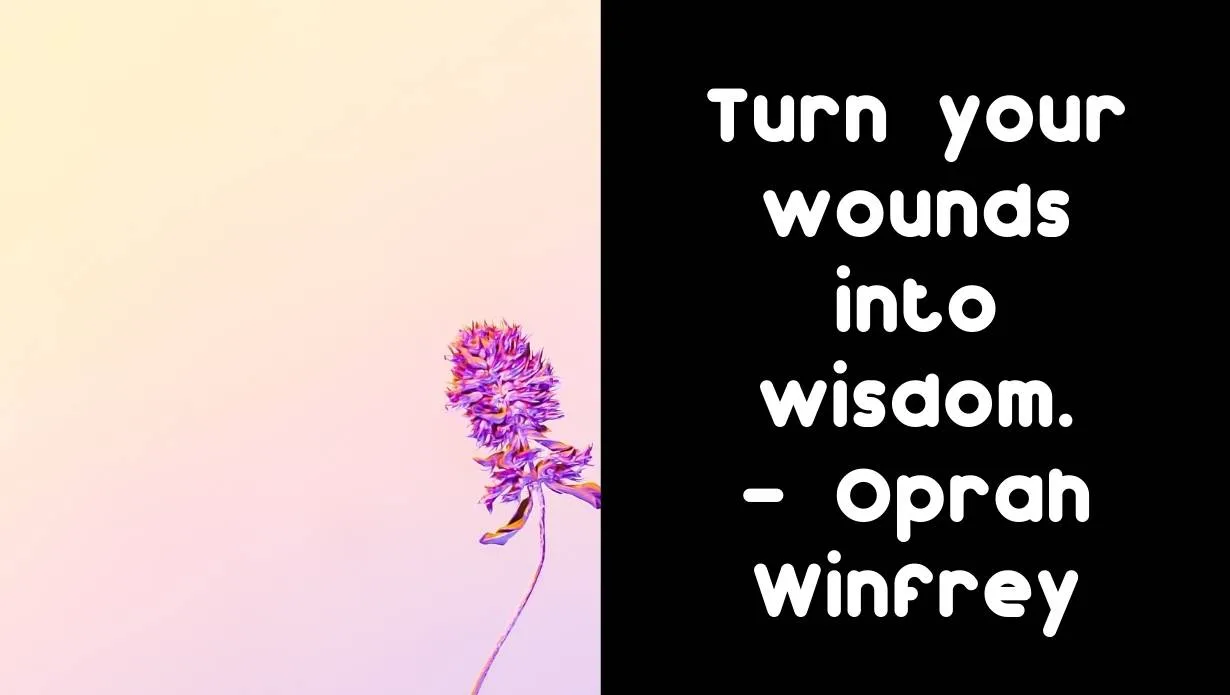
Today we introduce Dunkin Donuts Font which belongs to the Geometric Sans Serif typeface. This typeface was designed by Neale and Shayna Davidson. The design was inspired by the work of Paul Rand. This font has been used extensively in advertising and branding. This typeface was released in the year 2012
This cute typeface is a strong, modern typeface that is very versatile. It can be used for both headlines and body copy.
This font has a wide variety of weights and styles, so it can be used in different designs. For more classic designs, you can also use its similar Raavi Font.